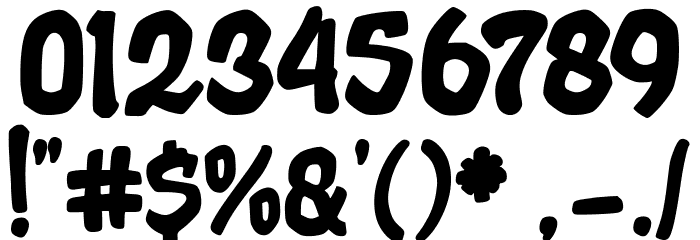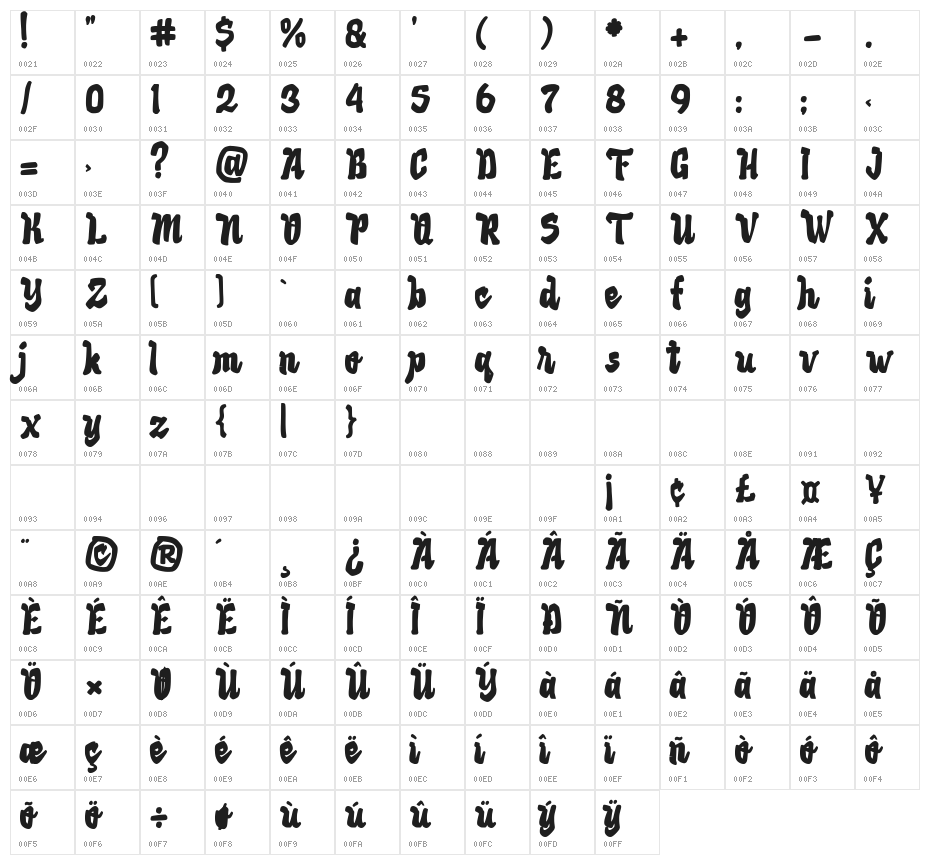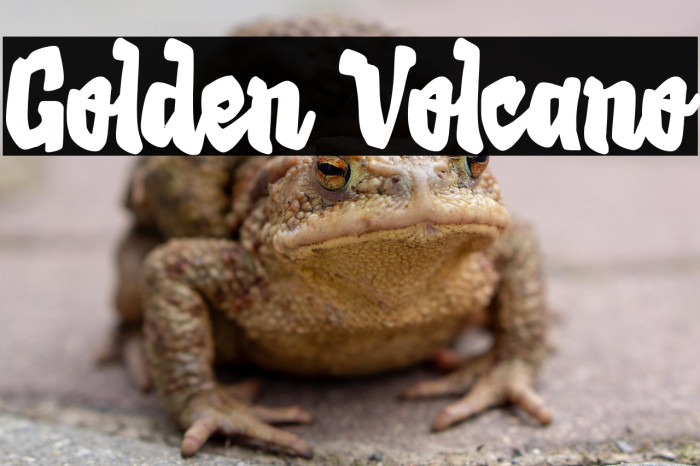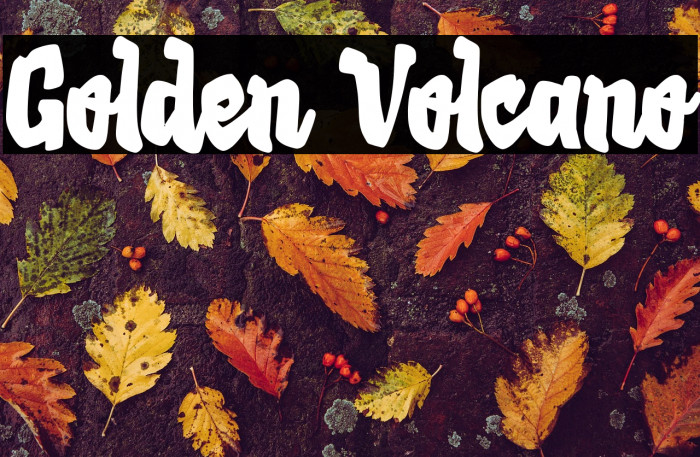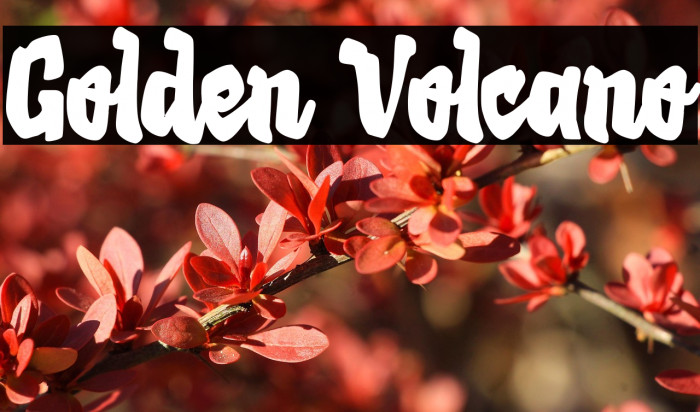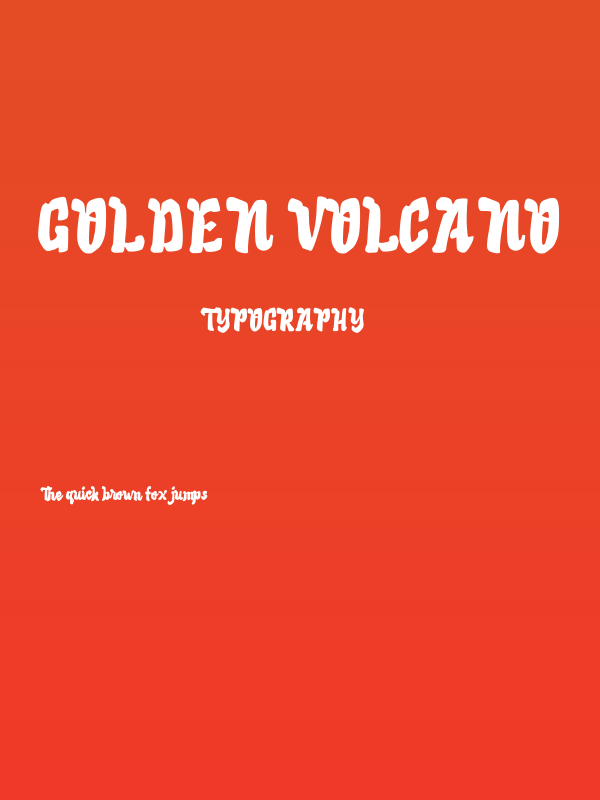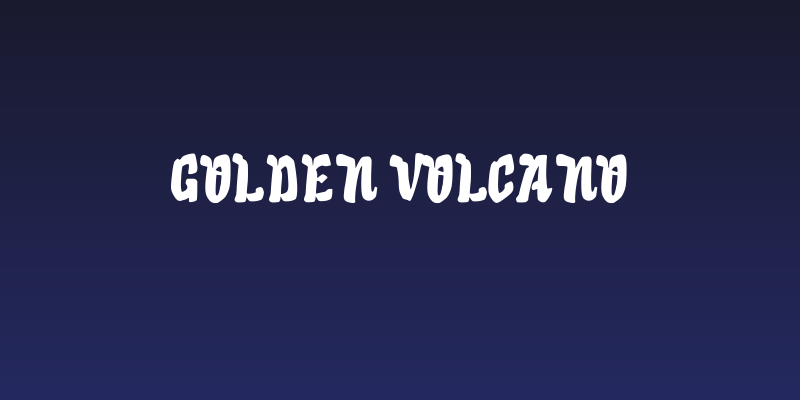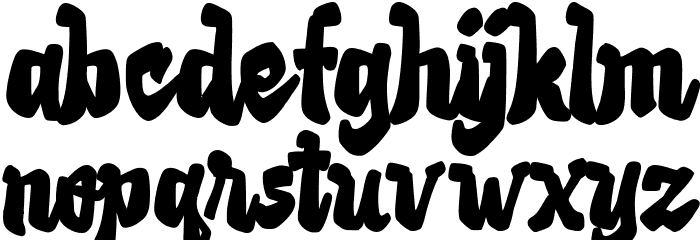
Golden Volcano Font
Golden Volcano Description
This font features a bold and dynamic style with a handwritten flair, characterized by thick, flowing strokes that convey a sense of energy and movement. The uppercase and lowercase letters are crafted with a playful and slightly irregular form, adding a touch of whimsy and creativity. The numbers and special characters maintain this lively aesthetic, ensuring consistency across all elements. The overall appearance is both eye-catching and approachable, making it suitable for a variety of design applications.
| Proposed Projects | Ideal for branding projects, poster designs, and creative invitations where a lively and engaging typeface is needed. |